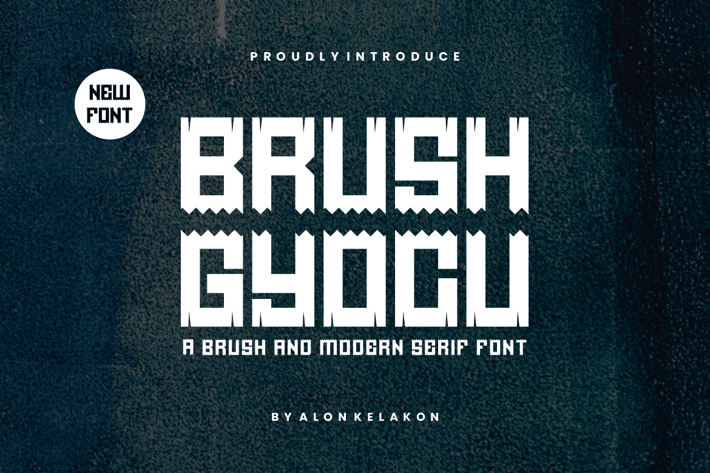
Brush Gyocu Brush Font
Brush Gyocu Brush Font Font is unique . Ready to use for your design like labeling, movie sceen, poster, movie title, gigs, album covers, logos, and much more.